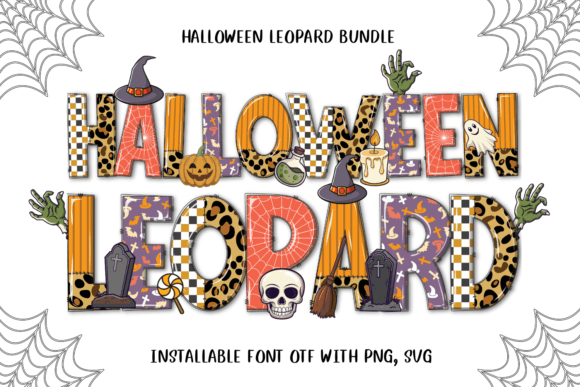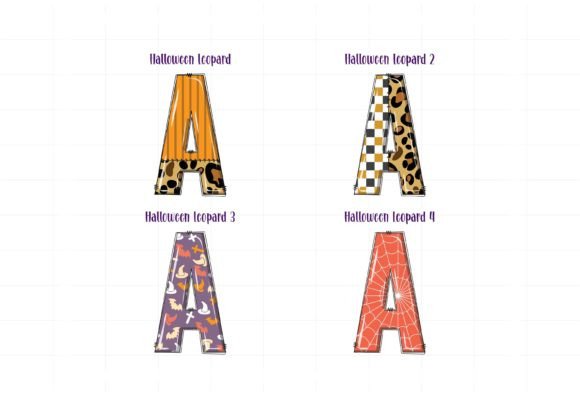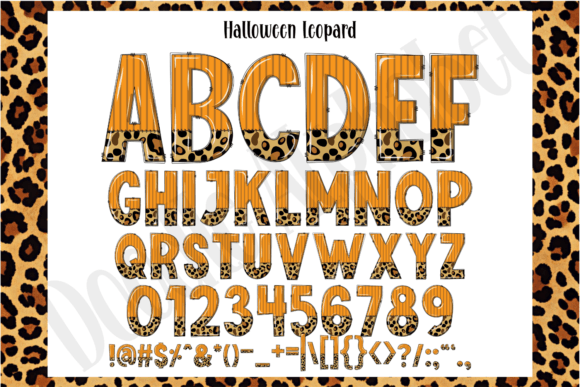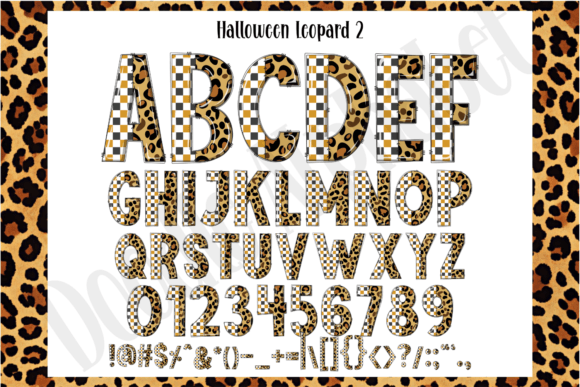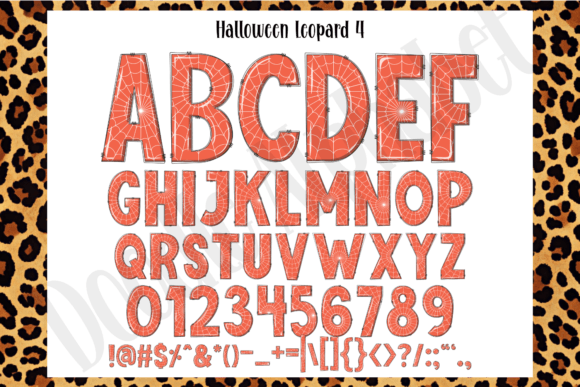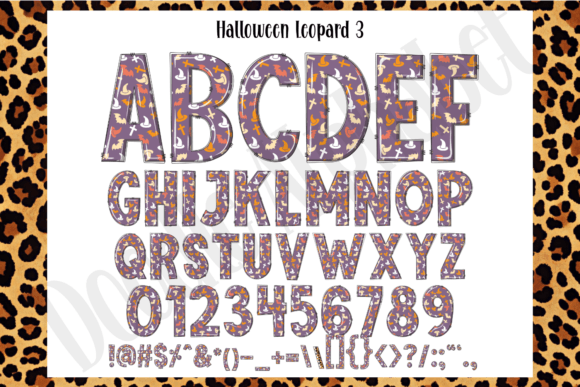
Halloween Leopard Font
Immerse yourself in the playful charm of the Halloween Leopard color font, meticulously crafted in a Doodle Alphabet style. This exquisite font boasts a unique aesthetic, blending cute visuals with radiant hues for an unmissable eye-catching appeal. Perfect for injecting a dash of fun into any design, Halloween Leopard brings both versatility and vibrancy to the table.
Add it to your creative toolkit and let your designs sparkle with its ineffable mix of cuteness and brightness. This isn’t just a font – it’s a delightful romance between playful doodles and tantalizing color, ready to make your projects stand out.